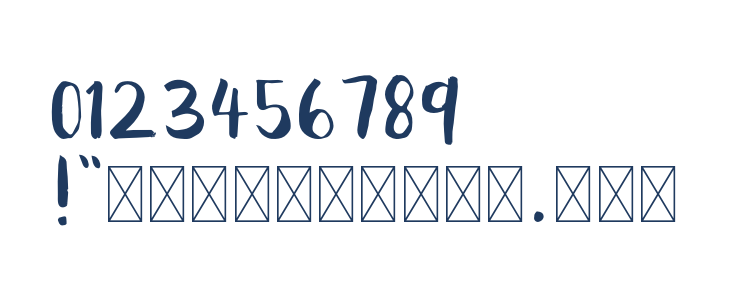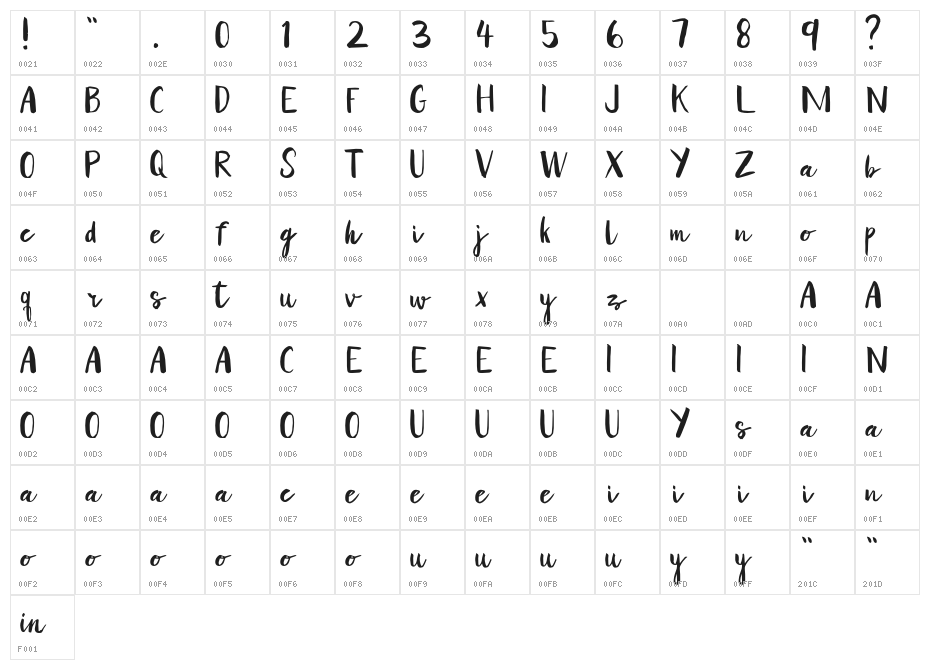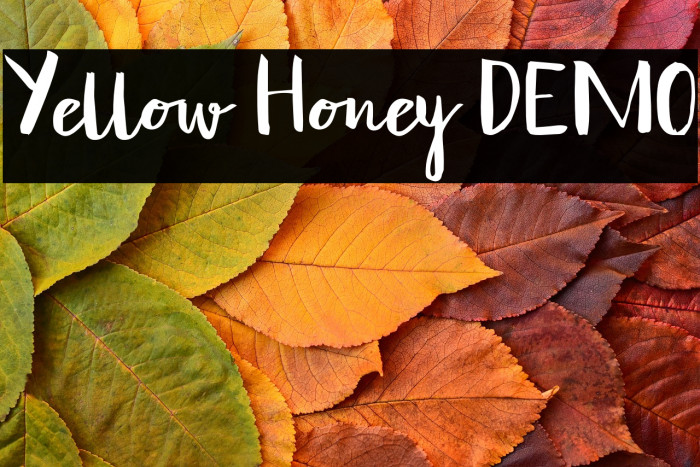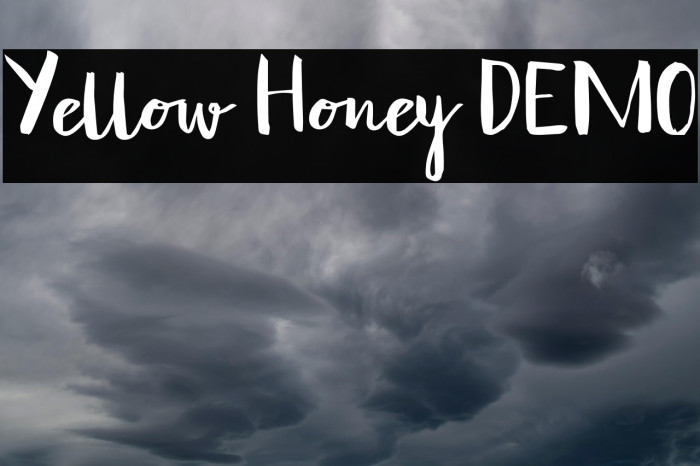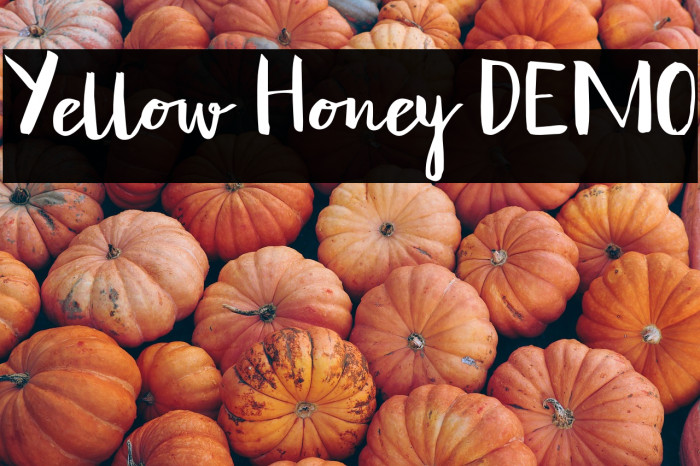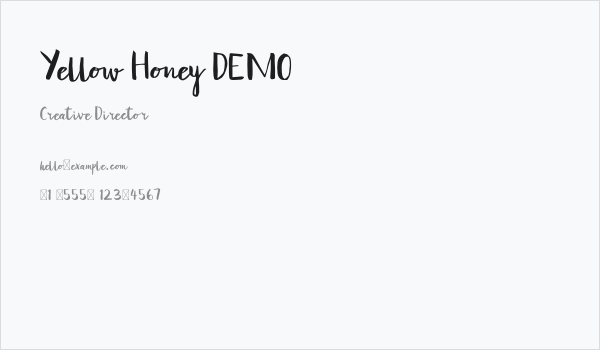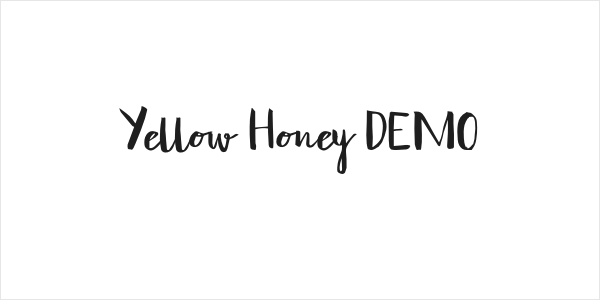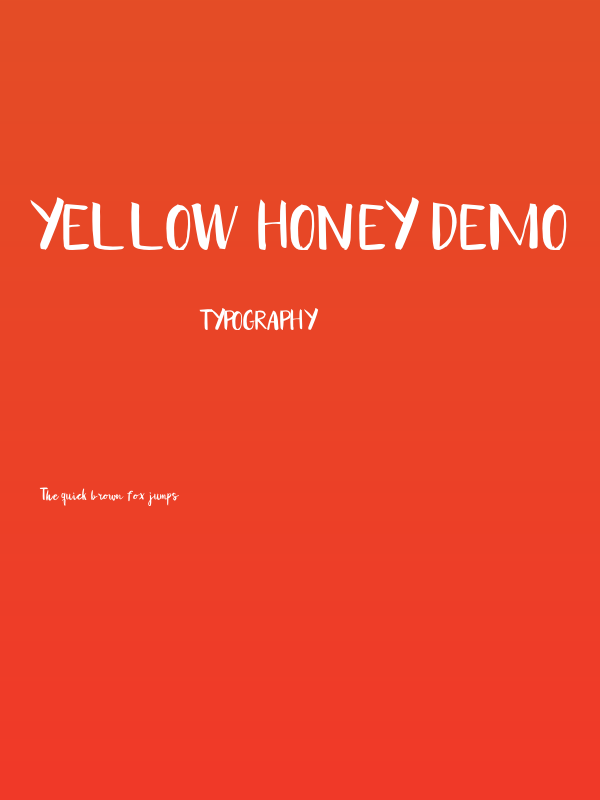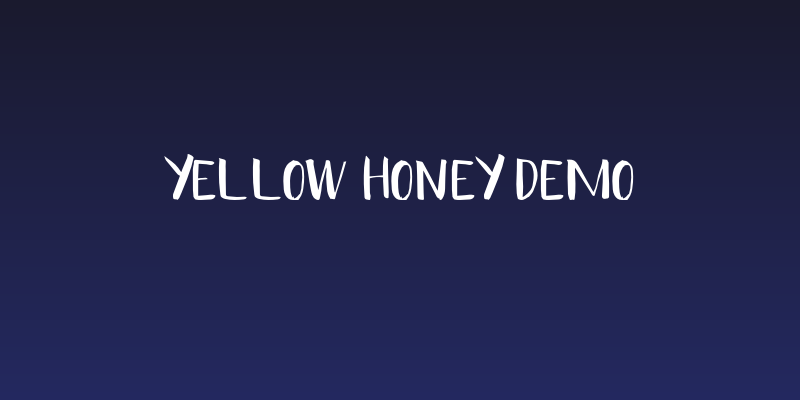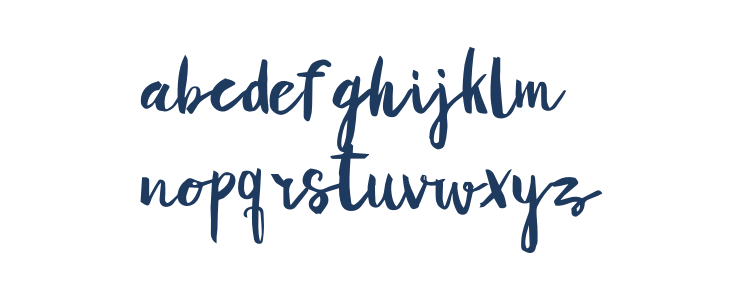
Yellow Honey DEMO Font
Yellow Honey DEMO Description
This font features a playful and energetic handwritten style, characterized by its bold and expressive strokes. The uppercase letters are tall and slightly narrow, with a consistent thickness that gives them a strong presence. The lowercase letters are more fluid and dynamic, with varying stroke widths that add a sense of movement and personality. The numbers are bold and easy to read, maintaining the same lively style as the letters. Special characters are included, matching the overall aesthetic. This font is perfect for projects that require a personal and informal touch, such as invitations, greeting cards, or creative branding.